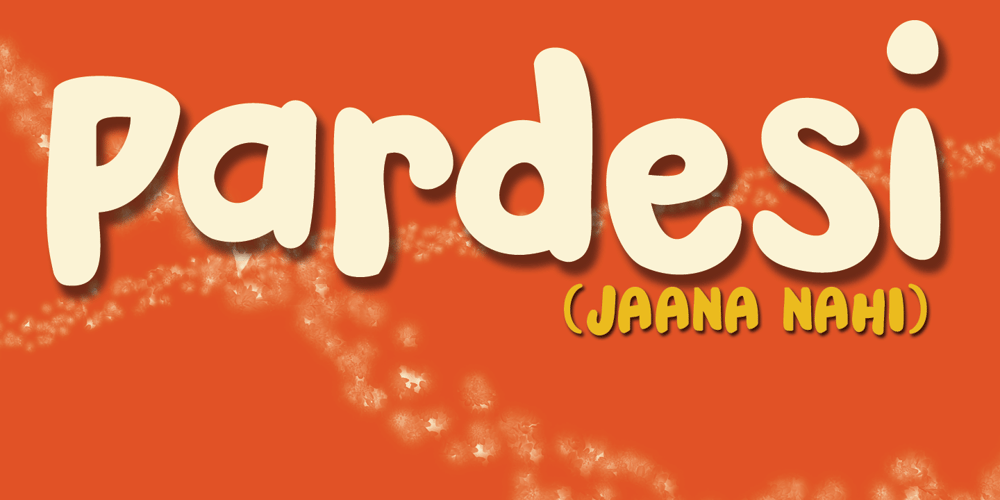
Pardesi
Pardesi font
Pardesi Font Family was designed by David Kerkhoff and published by Hanoded. Pardesi contains 1 styles and family package options. Pardesi font is named after a song from Raja Hindustani, a 1996 Bollywood movie directed by Dharmesh Darshan. The lead roles were played by Aamir Khan and Karisma Kapoor. Together they sing: ‘Pardesi, pardesi, jaana nahi’, meaning so much as: ‘Foreigner, foreigner, don’t go’. I remember this song very well, as I was backpacking through India and Nepal at the time and it was played over and over again on all long distance buses I took. Pardesi font is a fat, rounded, marker-pen font, ideal for books and posters. It comes with extensive language support.